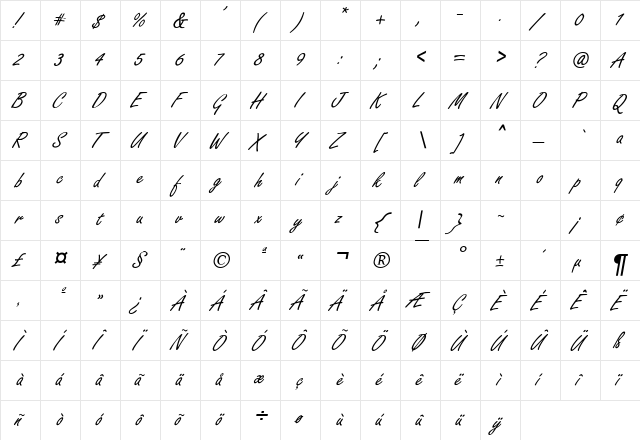
Freeze D Italic
Design Context for Freeze D Typeface
Freeze D takes a measured approach to typography — its balanced proportions and neutral character make it a reliable workhorse for both digital and print work. The dynamic lean of this cut emphasises speed and emphasis in any layout.
Pro Tip: Try Freeze D for annotation and caption copy alongside an upright companion — the contrast in angle creates a dynamic but ordered typographic system.